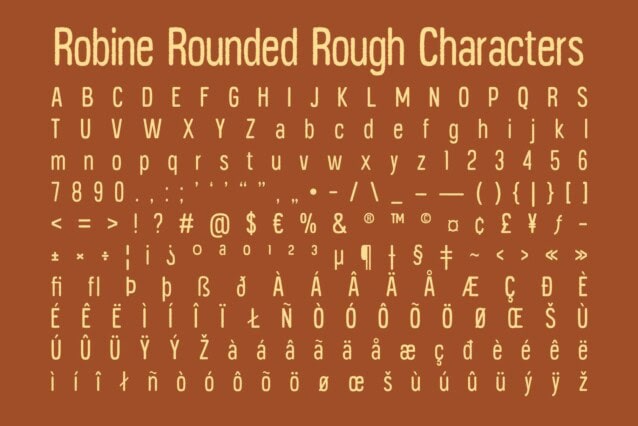
Robine Rounded Rough Font
Robine Rounded Rough Font is a modern sans-serif font featuring condensed, rounded letterforms with a textured, rugged appearance. The smooth curves give it a soft and friendly look, while the rough detailing adds a raw, handcrafted feel. This unique contrast creates a bold yet approachable aesthetic, making it a perfect choice for contemporary and vintage-inspired designs alike.